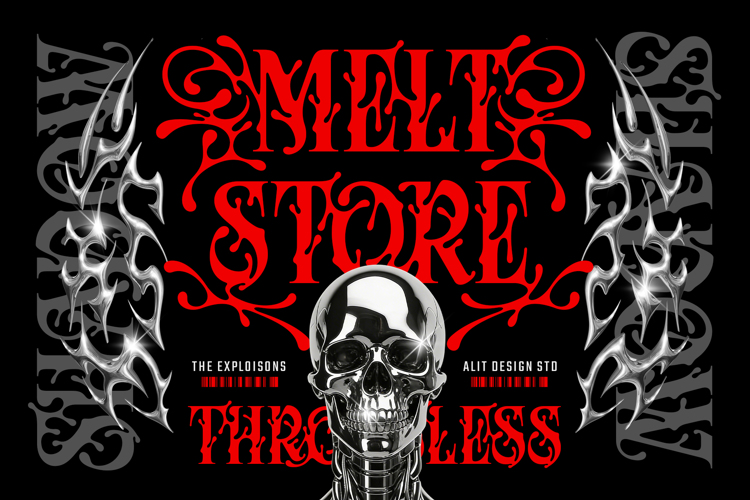
Candle Shlop Font
Candle Shlop Typeface: The Fluid Future of Chrome Typography
Introducing Candle Shlop, a groundbreaking display typeface that seamlessly fuses classical serif elegance with a highly futuristic, molten metal aesthetic. Designed for creators who want to push the boundaries of modern typography, Candle Shlop features striking letterforms crafted to look like flowing liquid chrome. The result is a highly fluid, dimensional, and dripping texture that brings an aggressive yet refined edge to any canvas.
Whether you are channeling a dark, Y2K-inspired cyber aesthetic or looking to add a visceral, melting effect to your typography, Candle Shlop delivers unparalleled visual impact.